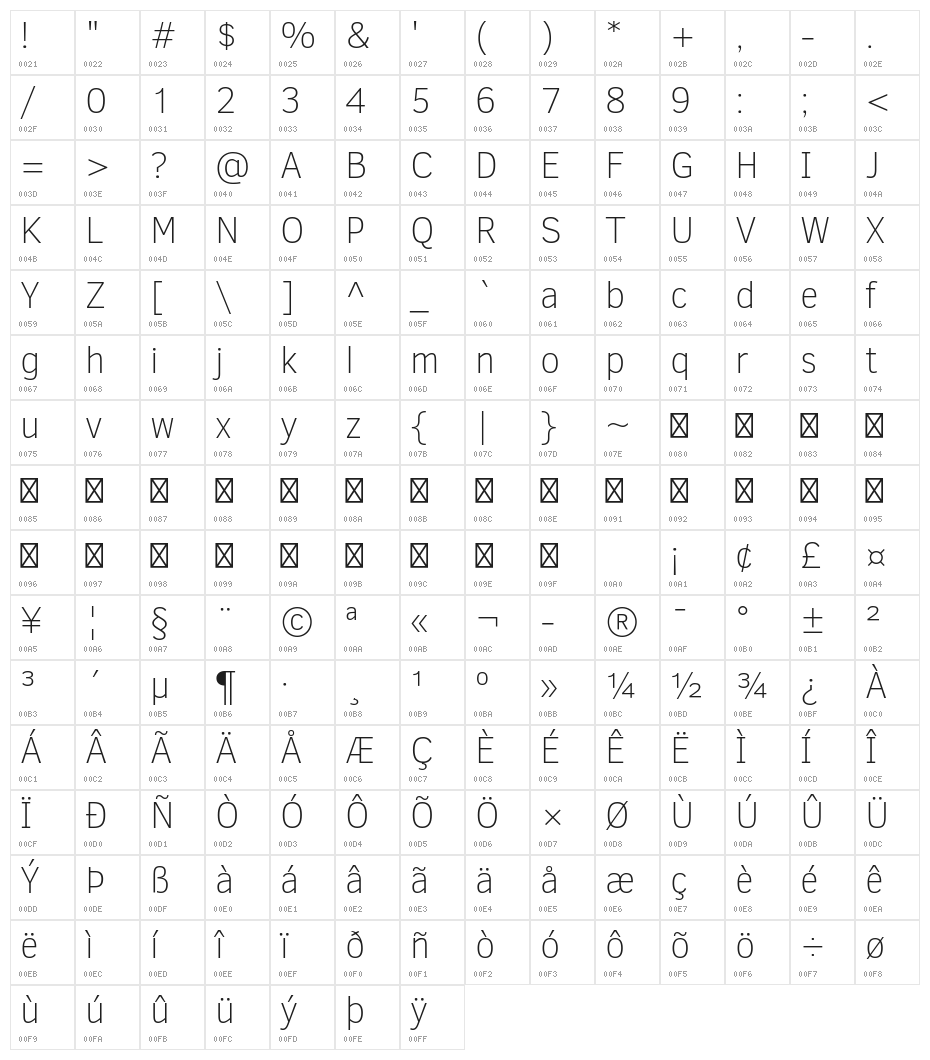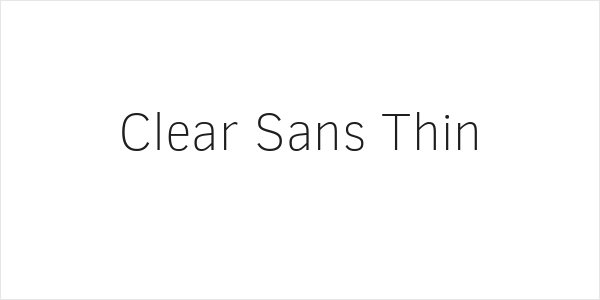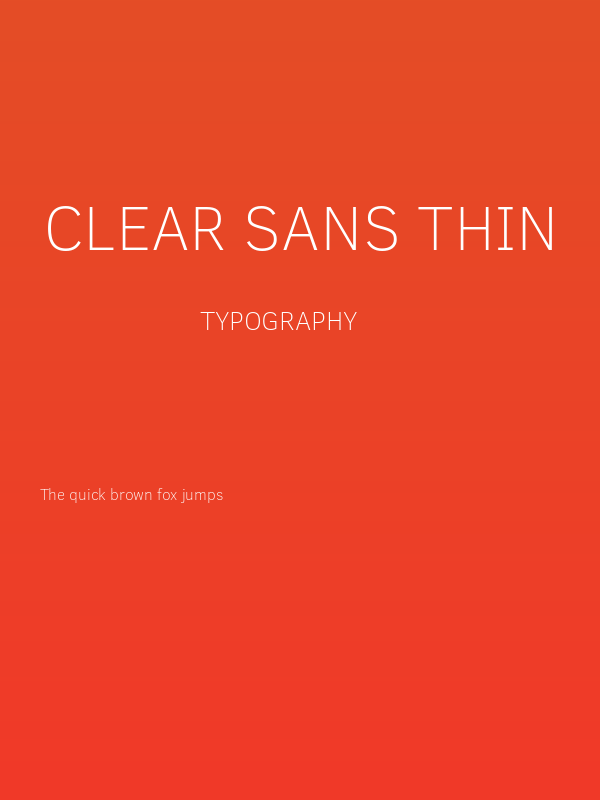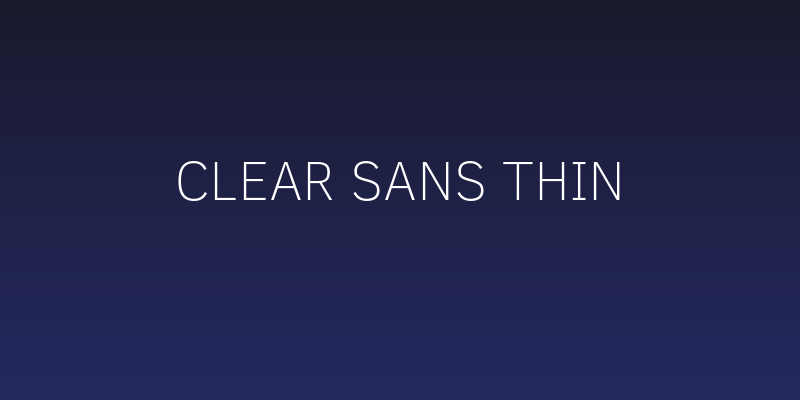
Clear Sans Thin Font
Clear Sans Thin Description
This font features a clean and modern sans-serif design with a thin weight, providing a sleek and minimalist appearance. The characters are well-proportioned, offering excellent readability and a contemporary aesthetic. The uppercase and lowercase letters maintain a consistent style, with smooth curves and straight lines that enhance its elegant simplicity. The numerals and special characters are designed to complement the overall look, ensuring uniformity across different text elements. This font's thin strokes and open forms make it ideal for projects requiring a refined and understated touch.
| Proposed Projects | Ideal for digital interfaces, minimalist branding, editorial design, and modern advertising. |